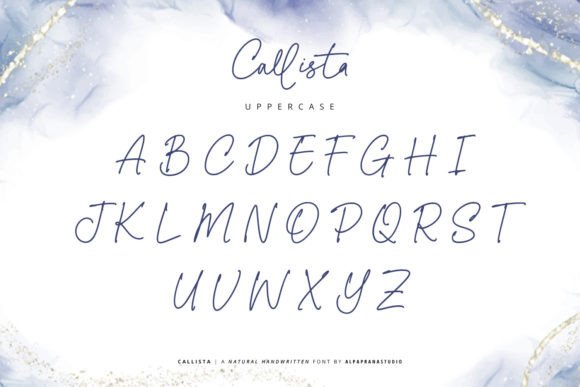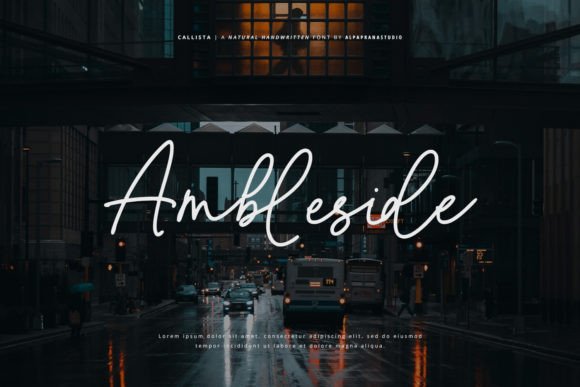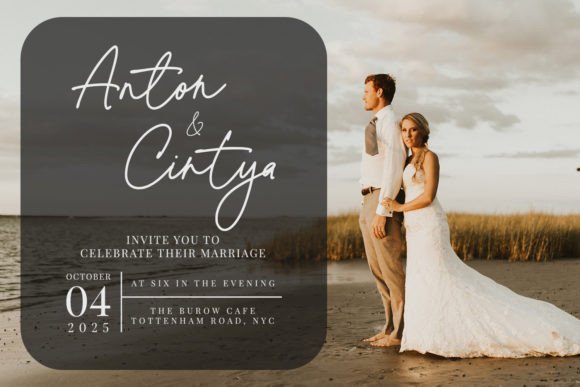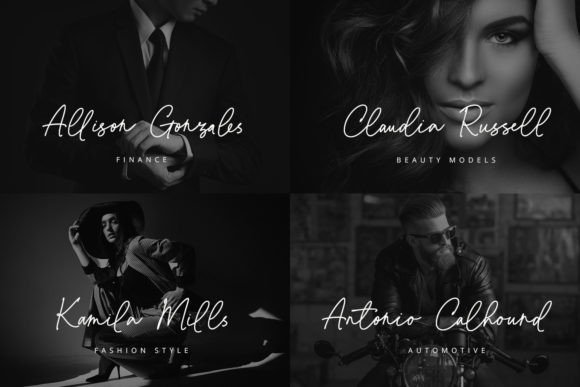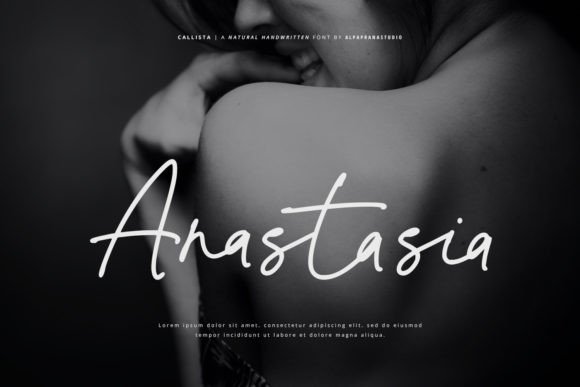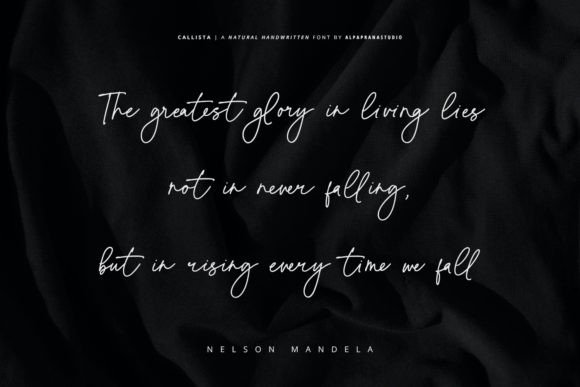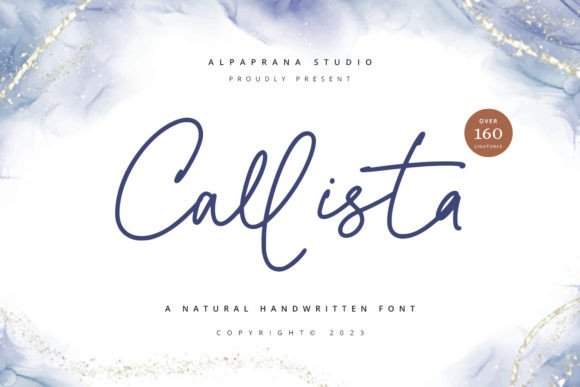
Introducing Callista Font: The Epitome of Elegance and Sophistication
In the world of typography, few fonts manage to convey the essence of luxury and refinement as effortlessly as Callista. This modern and elegant script font has been turning heads with its flowing, intricate letterforms and delicate strokes, exuding a sense of refined beauty that is hard to ignore. Whether you’re a designer looking for the perfect font to elevate your luxury branding, a crafty individual seeking to create stunning wedding invitations, or simply someone who appreciates the finer things in life, Callista is sure to captivate and inspire.
The Characteristics of Callista Font
Callista’s design is characterized by its sweeping curves, elegant ligatures, and precise craftsmanship. Each letterform is carefully crafted to create a sense of fluidity and movement, giving the font a dynamic and sophisticated feel. The delicate strokes and subtle nuances in the lettering add a touch of whimsy and romance, making it perfect for designs that require a feminine and elegant touch.
Perfect for Luxury Branding
When it comes to luxury branding, the font you choose can make all the difference. Callista’s refined and sophisticated aesthetic makes it an ideal choice for high-end brands looking to convey a sense of elegance and refinement. From haute couture to luxury jewelry, Callista’s elegant script font is sure to add a touch of sophistication and glamour to any brand identity.
Wedding Invitations and Feminine Designs
Callista is also a popular choice for wedding invitations, stationery, and other feminine designs. The font’s delicate and romantic feel makes it perfect for creating beautiful and memorable wedding stationery, while its elegance and sophistication ensure that it will complement any wedding theme or style. Whether you’re a bride looking for the perfect font to match your wedding style or a designer seeking to create stunning wedding invitations, Callista is sure to impress.
Why Choose Callista Font?
So why choose Callista font for your next design project? Here are just a few reasons why this elegant script font stands out from the rest:
- Elegance and Sophistication: Callista’s refined and sophisticated aesthetic makes it perfect for luxury branding, wedding invitations, and feminine designs.
- Versatility: Callista is a versatile font that can be used for a wide range of design projects, from print to digital.
- Attention to Detail: Each letterform is carefully crafted to create a sense of fluidity and movement, giving the font a dynamic and sophisticated feel.
- Easy to Read: Despite its intricate and delicate design, Callista is easy to read and understand, making it perfect for body text and headlines.
Tips for Using Callista Font
To get the most out of Callista font, here are a few tips to keep in mind:
- Use it sparingly: Callista’s elegance and sophistication are best showcased when used sparingly. Use it for headlines, titles, or key phrases to add a touch of luxury and refinement.
- Pair it with a sans-serif font: For body text, pair Callista with a clean and modern sans-serif font to create a beautiful contrast and add visual interest.
- Experiment with colors: Callista looks stunning in a range of colors, from metallic gold and silver to soft pastels. Experiment with different colors to find the perfect combination for your design.
In conclusion, Callista font is a modern and elegant script font that embodies the essence of luxury and refinement. With its flowing, intricate letterforms and delicate strokes, it exudes a sense of refined beauty that is hard to ignore. Whether you’re a designer, crafty individual, or simply someone who appreciates the finer things in life, Callista is sure to captivate and inspire. So why not give it a try and see how this stunning font can elevate your design projects to new heights?